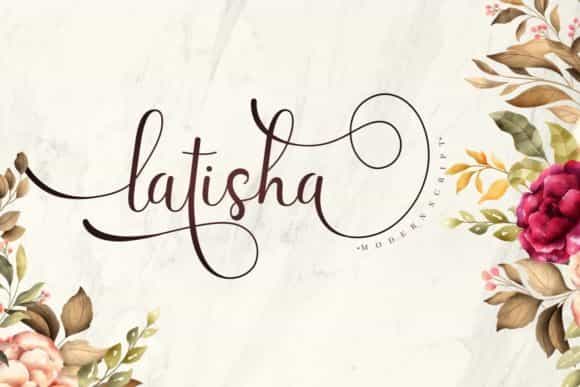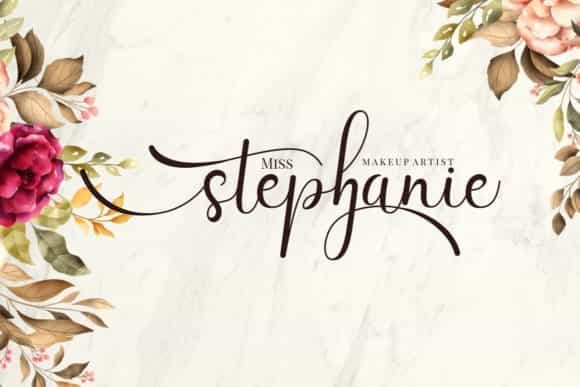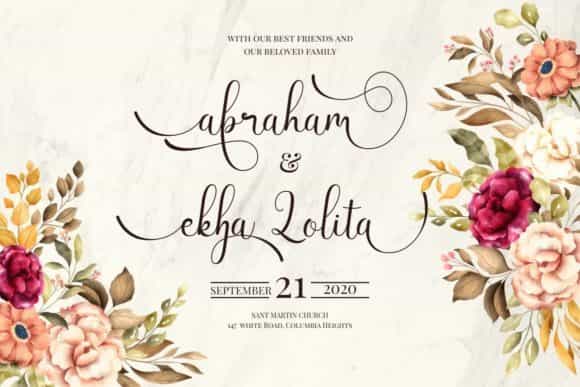
Latisha is motivated by the old typography and creates its own design style in every project. This wonderful script font is perfect for all the sizes of headlines and also for text blocks that have both maximum and minimum variations. No matter if it’s for a website, print materials, video or any other thing – Latisha will be great.